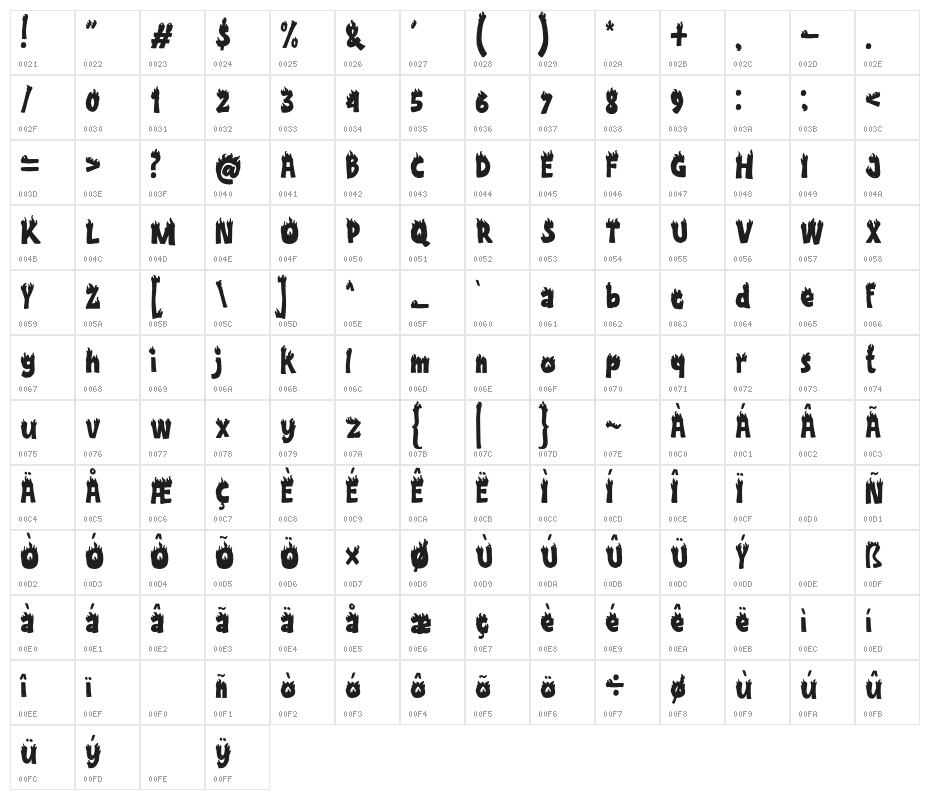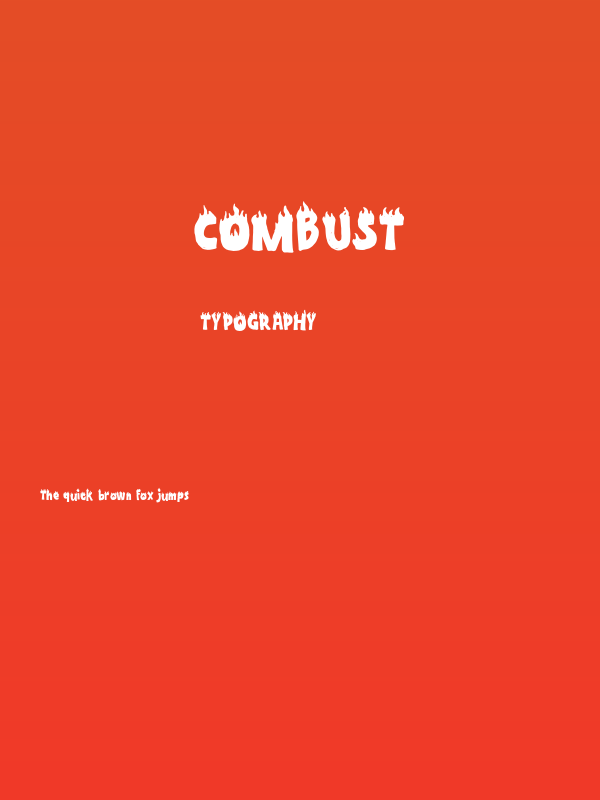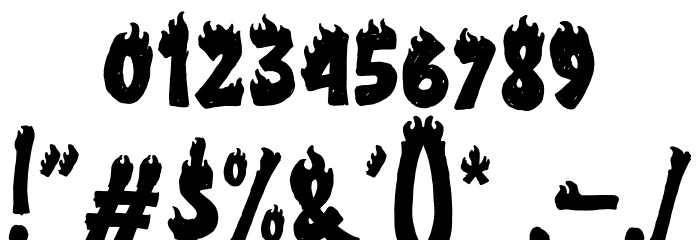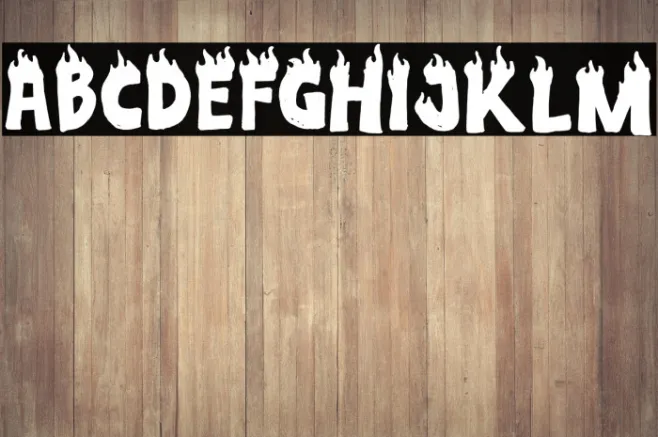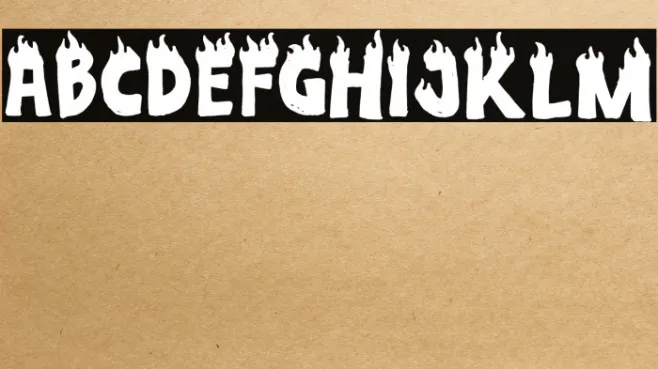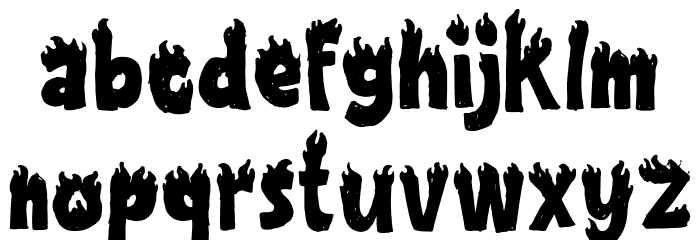
Combust Font
Combust Description
This font features a bold and fiery design, with each character appearing to be engulfed in flames. The uppercase and lowercase letters, as well as numbers and special characters, all share this dynamic and energetic style. The strokes are thick and robust, giving the font a strong presence. The playful yet intense appearance makes it ideal for grabbing attention and conveying a sense of excitement or urgency.
| Proposed Projects | Ideal for event posters, Halloween themes, video game graphics, or any project needing a fiery and eye-catching design. |